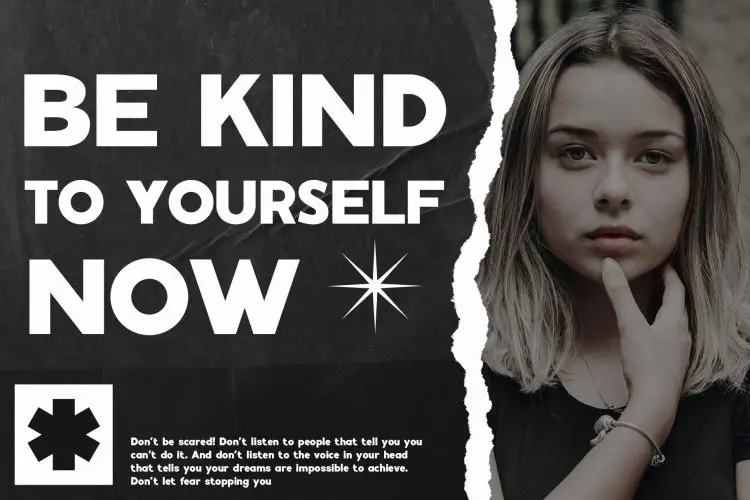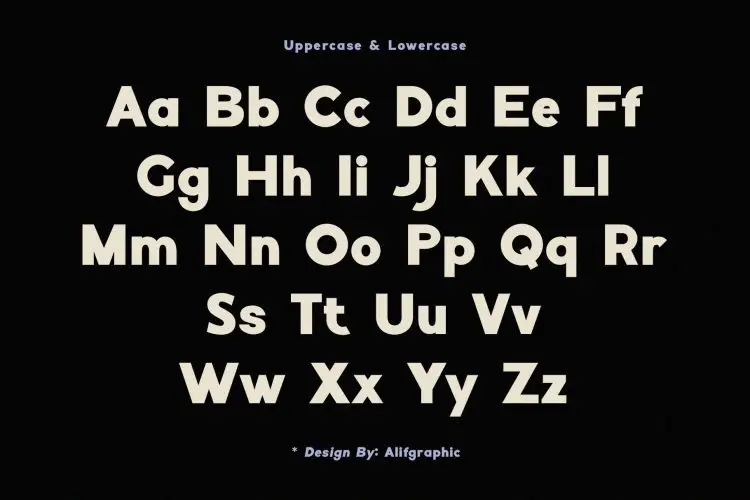
Flaters Bold Sans Serif Font
Flaters
Discover Flaters, a bold sans-serif font designed to bring friendliness and legibility to your projects. With clean, strong lines and modern styling, Flaters is perfect for a variety of creative needs, from digital designs and presentations to greeting cards and personal branding. This versatile font is the perfect choice for anyone looking to make a statement with clarity and style.
Whether you’re working on social media graphics, advertising campaigns, or visual identity projects, Flaters ensures your designs are bold, approachable, and impactful.
Ideal for:
• Presentations
• Advertising Campaigns
• Visual Identity Projects
• Social Media Designs
• Personal Branding
Features:
• Ready for Creative Expression
• Immaculately Crafted Letters
Flaters is a bold sans-serif font that combines clarity with style. Ideal for presentations, advertising, and branding, it elevates any creative project.